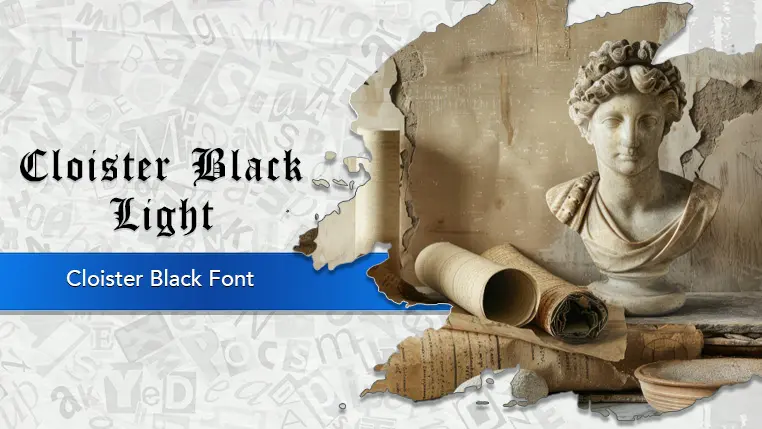
The Cloister Black font family may be ideal for you if you enjoy working on an artistic design project. The lively, expressive look of this typeface, which was created by Dieter Steffmann, makes it ideal for It makes a strong statement and is excellent for impactful headlines, particularly in designs aiming for a medieval, gothic, or historical aesthetic. Also For businesses or products that want to convey a sense of history, tradition, strength, or a unique, edgy aesthetic. and other light-hearted visual projects.
Light are the one primary font styles of the Cloister Black font family. You may build dynamic, visually appealing text layouts with the distinct flair that each style offers. With crisp, readable lines and a relaxed tone.